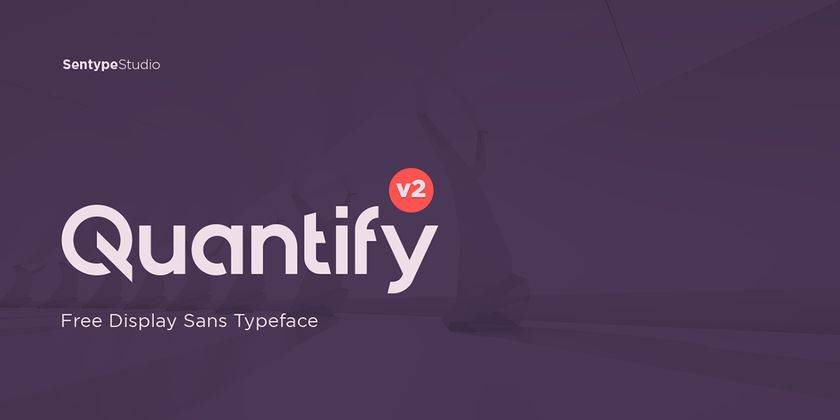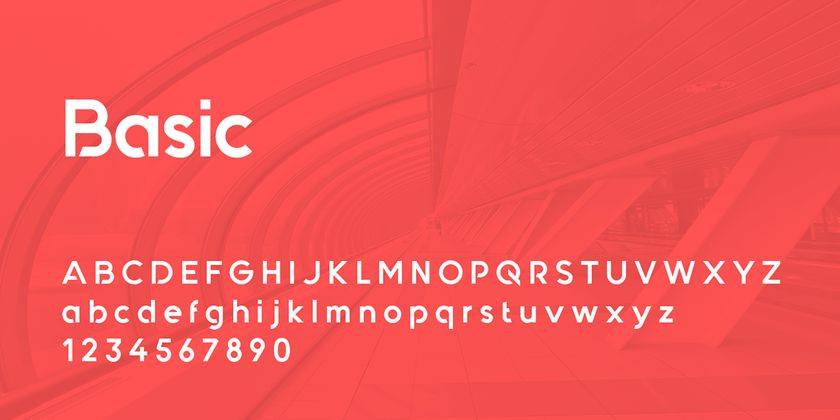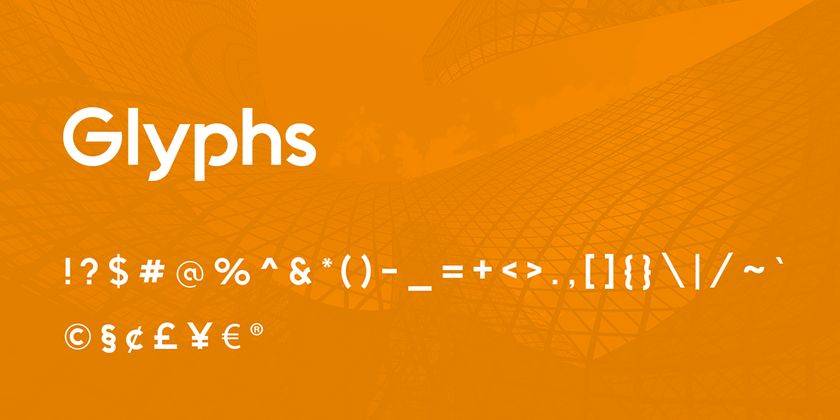
Quantify Sans V2 is a bold, geometric sans-serif typeface characterized by clean, sharp edges and a modern, streamlined appearance. With its strong, uniform strokes and unique letter shapes like the angled Q and single-story a and g, it conveys a contemporary, tech-savvy vibe ideal for branding, headlines, and digital use. This font works well in projects that demand clarity and impact, making it perfect for logos, websites, and editorial headlines where readability and a futuristic feel are key.
Quantify Sans V2 Typeface
About Quantify Sans V2 Typeface
| Designer | Saidi Alfianor |